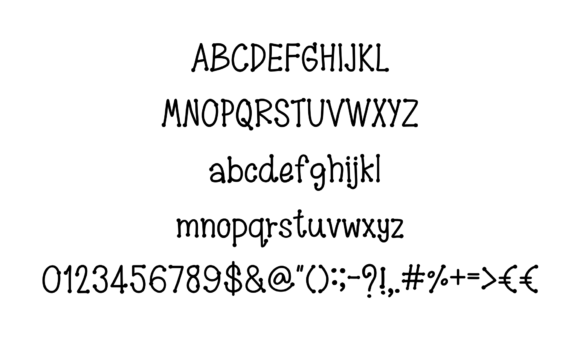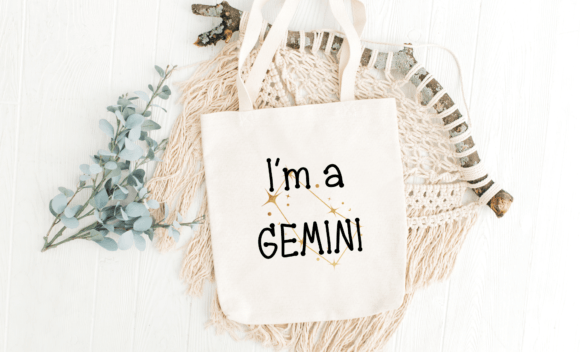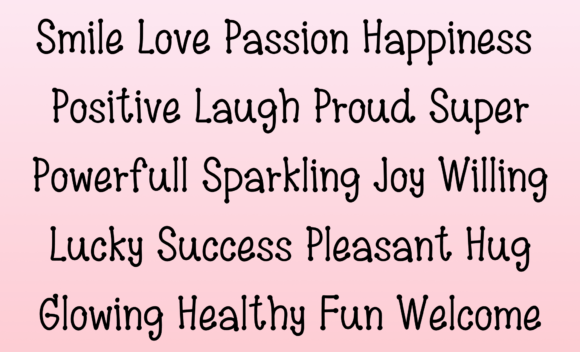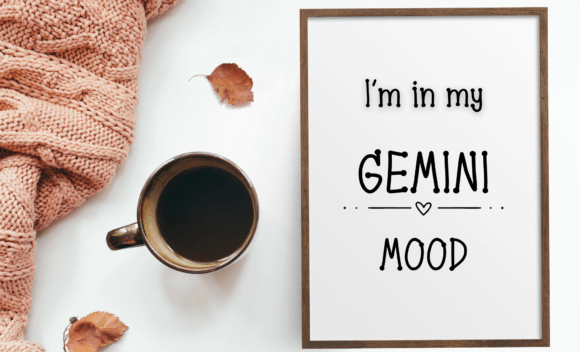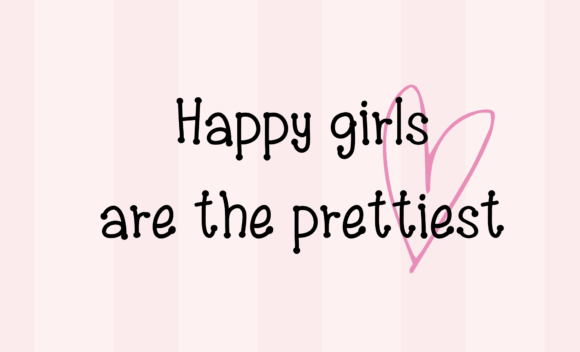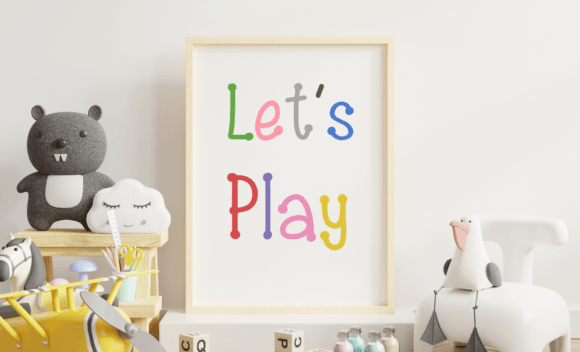
Introducing Gemini Font: The Perfect Handwritten Font for Your Design Projects
Are you a designer or crafter looking for a unique and versatile font to elevate your design projects? Look no further than Gemini Font, a neat and cute handwritten font that’s perfect for a variety of applications. In this article, we’ll explore the features and benefits of Gemini Font, and show you how it can be used to create stunning digital prints, social media graphics, cards, invitations, planners, journals, and more.
What is Gemini Font?
Gemini Font is a beautifully crafted handwritten font that’s designed to be both elegant and approachable. Its neat and cute style makes it perfect for a wide range of design projects, from digital prints and social media graphics to cards, invitations, planners, and journals. With its unique character and charm, Gemini Font is sure to capture the attention of your audience and leave a lasting impression.
Key Features of Gemini Font
- Handwritten style: Gemini Font has a beautiful, handwritten style that’s perfect for creating personal and engaging designs.
- Neat and cute: The font’s neat and cute style makes it perfect for a wide range of design projects, from digital prints to planners and journals.
- Versatile: Gemini Font is highly versatile and can be used for a variety of design projects, including digital prints, social media graphics, cards, invitations, planners, journals, and more.
- Easy to read: The font is easy to read, making it perfect for body text and other applications where readability is important.
Uses for Gemini Font
Gemini Font is a highly versatile font that can be used for a wide range of design projects. Here are some ideas to get you started:
- Digital prints: Use Gemini Font to create stunning digital prints, including posters, flyers, and brochures.
- Social media graphics: Create engaging social media graphics, including Facebook posts, Instagram stories, and Twitter headers, using Gemini Font.
- Cards and invitations: Use Gemini Font to create beautiful cards and invitations for special occasions, such as birthdays, weddings, and holidays.
- Planners and journals: Add a personal touch to your planners and journals with Gemini Font, perfect for bullet journaling and other creative projects.
- Branding and packaging: Use Gemini Font to create a unique and recognizable brand identity, including logos, packaging, and labels.
Tips for Using Gemini Font
Here are some tips for getting the most out of Gemini Font:
- Experiment with different colors: Gemini Font looks great in a variety of colors, so don’t be afraid to experiment and find the perfect color scheme for your design.
- Mix and match with other fonts: Gemini Font pairs well with other fonts, so try mixing and matching it with other fonts to create a unique and interesting design.
- Use it for body text: Gemini Font is easy to read, making it perfect for body text and other applications where readability is important.
- Add some flair: Use Gemini Font to add some flair to your design, including headings, titles, and other decorative elements.
Gemini Font is a beautiful and versatile handwritten font that’s perfect for a wide range of design projects. Its neat and cute style makes it perfect for digital prints, social media graphics, cards, invitations, planners, journals, and more. With its ease of use and flexibility, Gemini Font is a great addition to any designer’s toolkit. So why wait? Download Gemini Font today and start creating stunning designs that capture the attention of your audience!